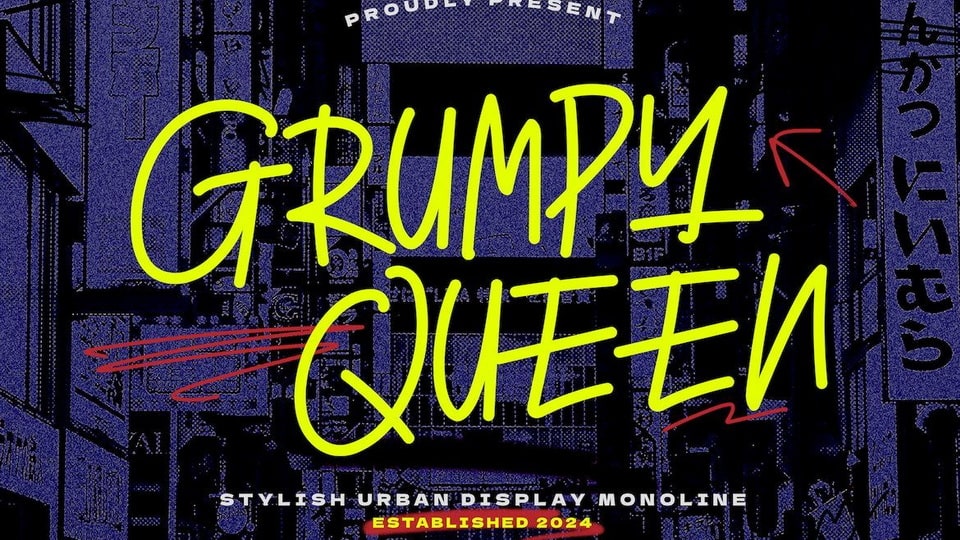
Download Grumpy Queen font, a sleek, handwritten typeface with thin lines and all uppercase letters but have different styles between uppercase and lowercase characters.